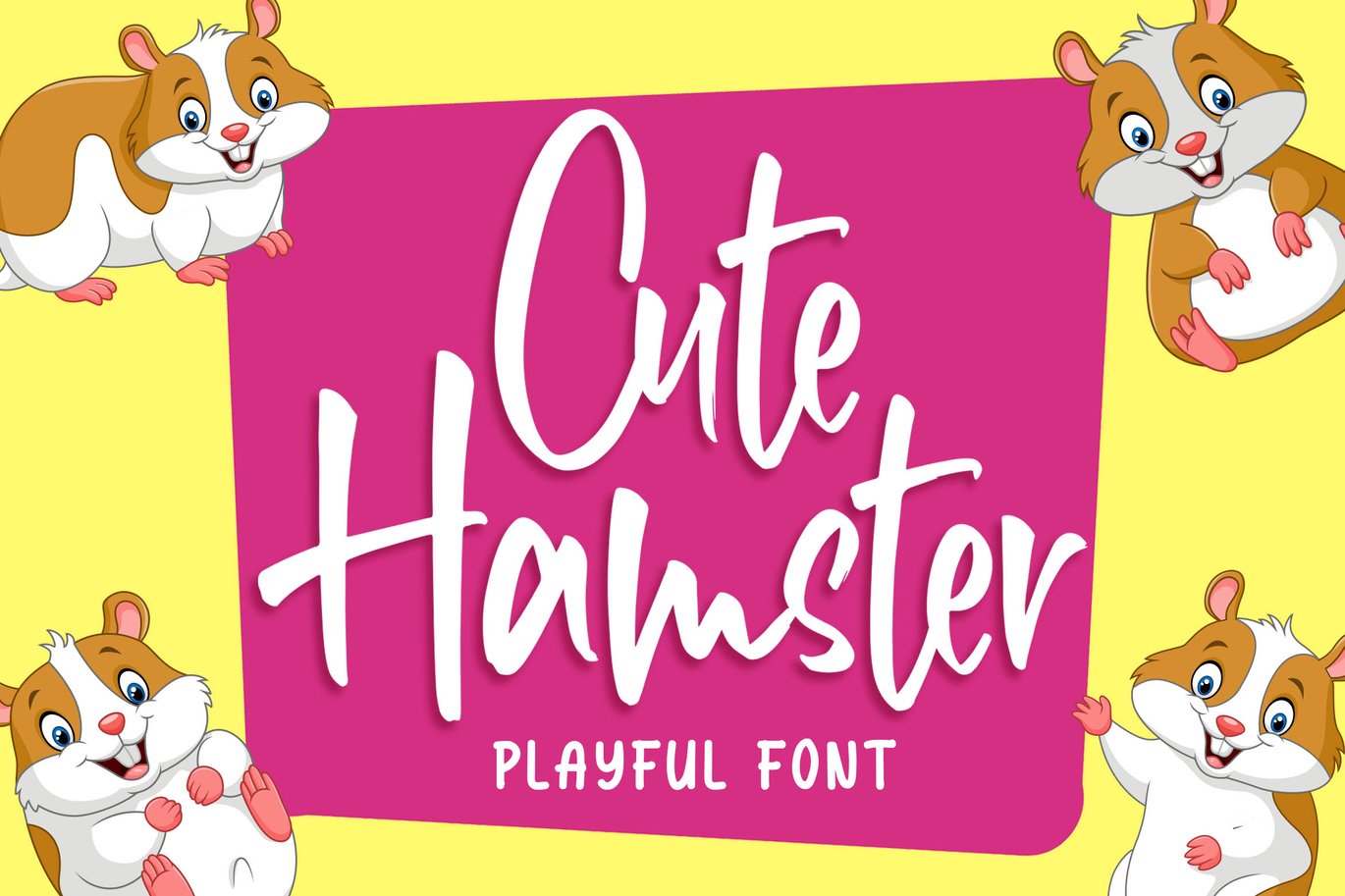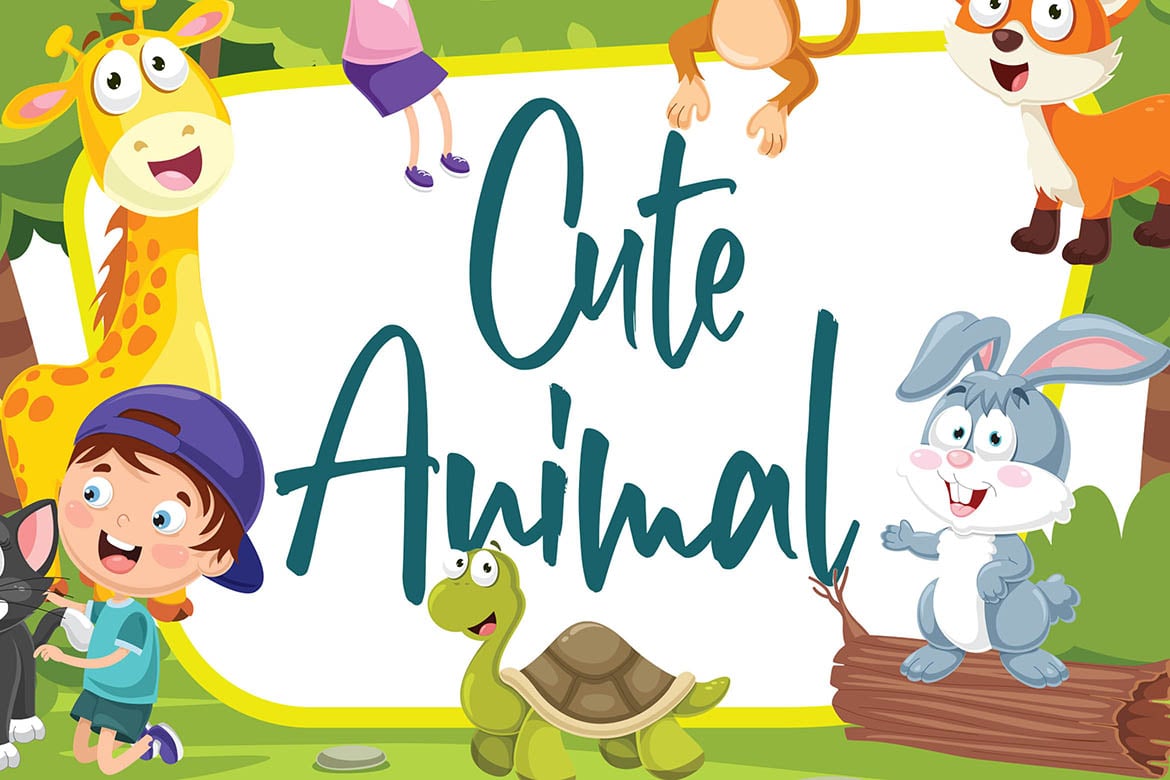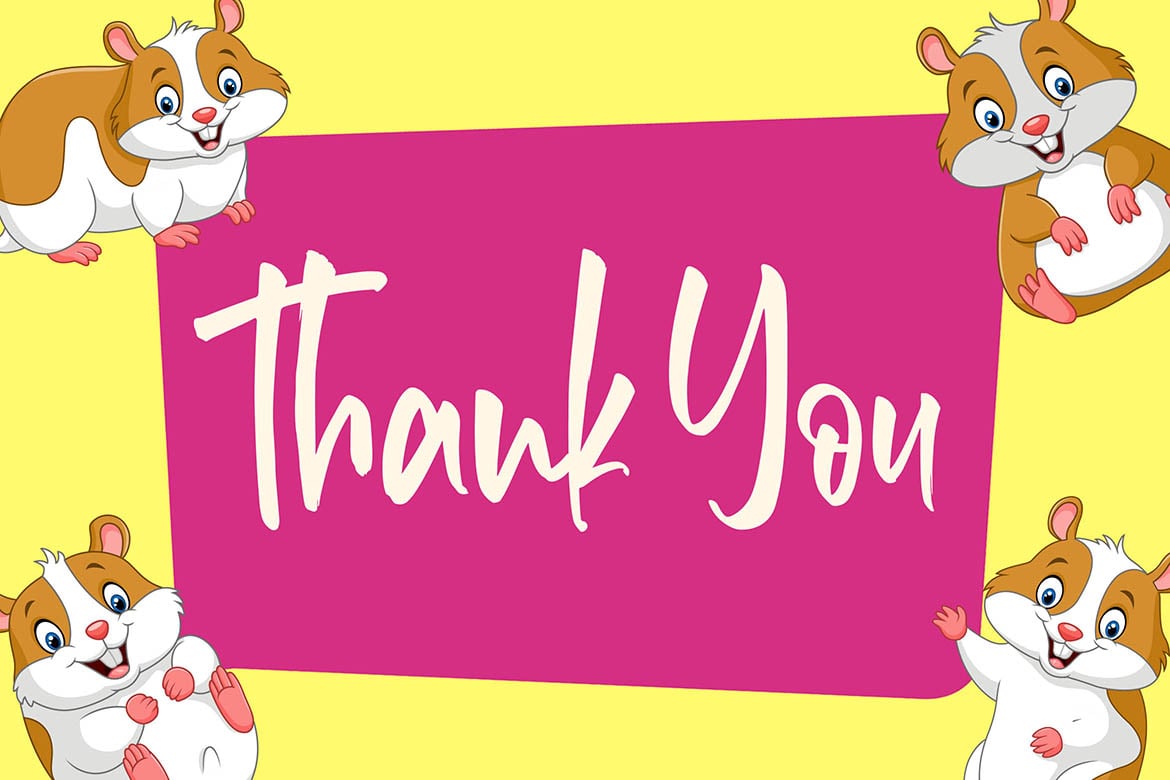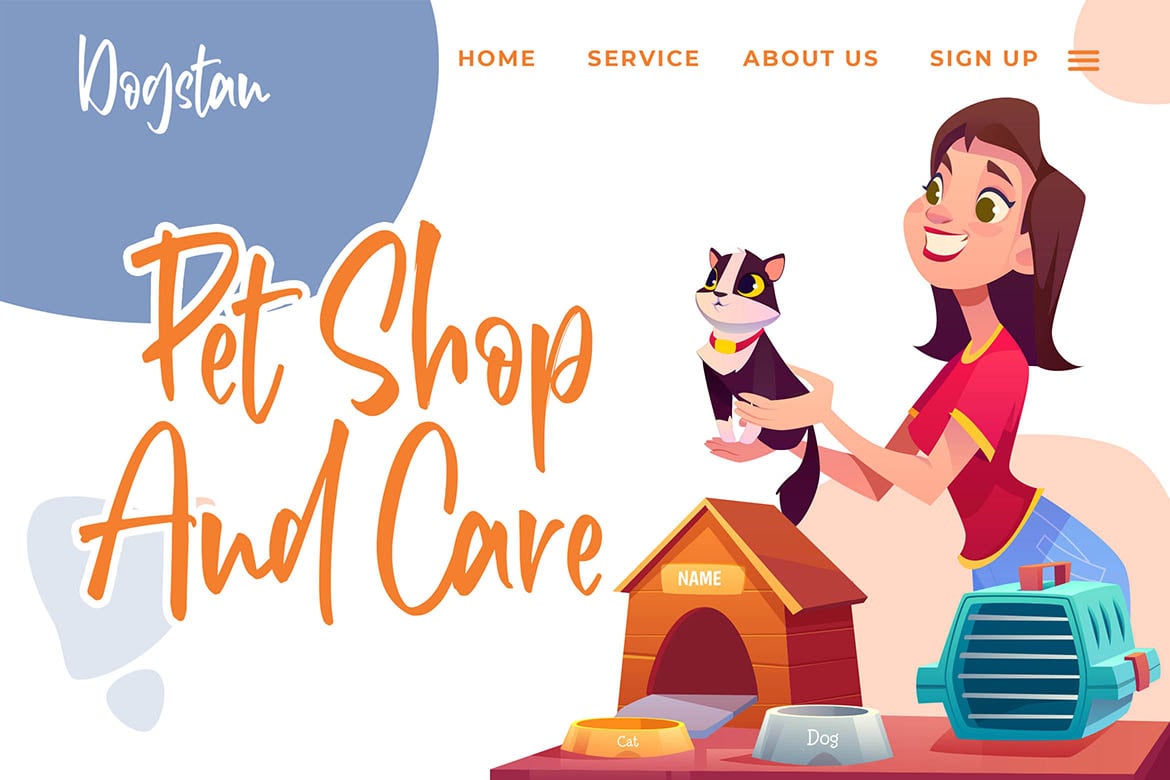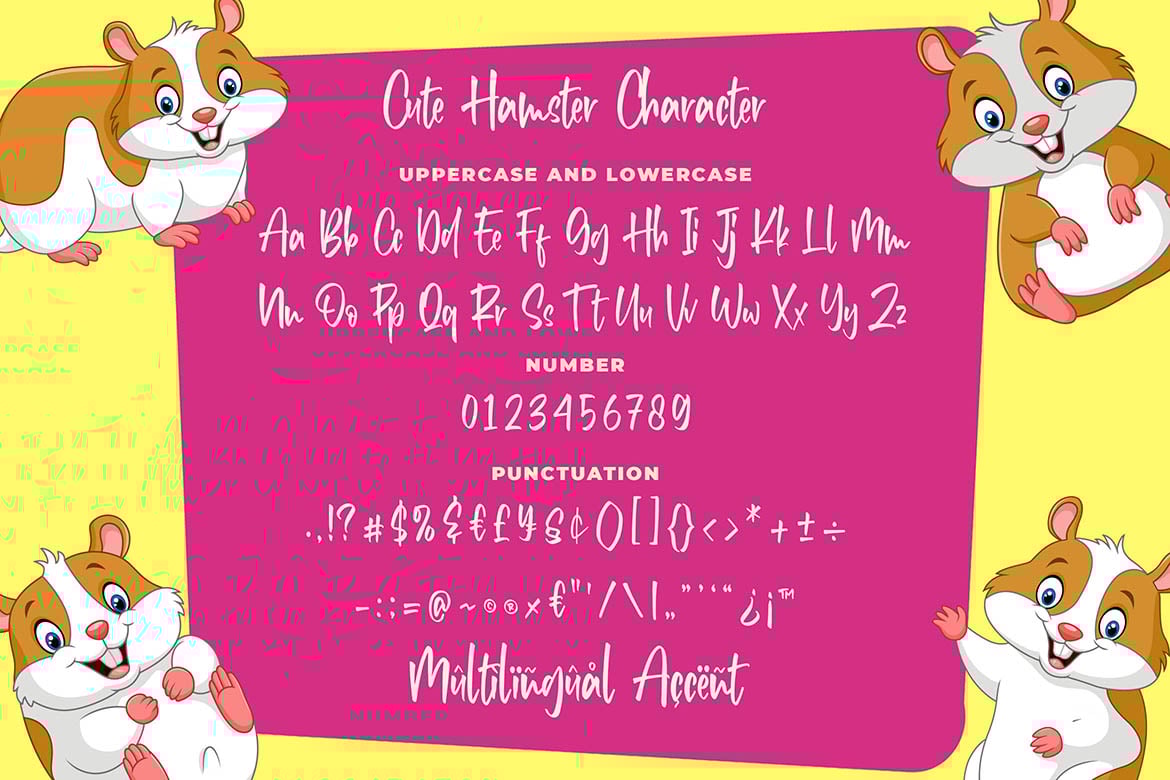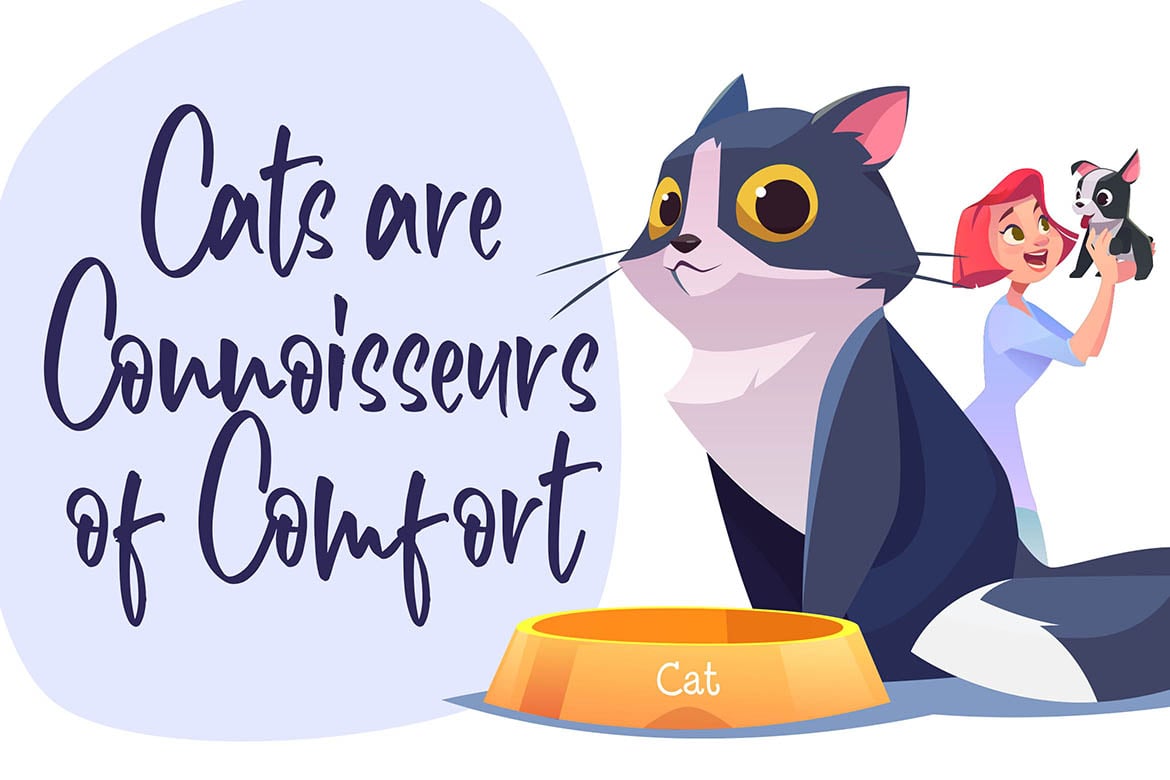
Cute Hamster – Playful Font
Introducing of our new product the name is Cute Hamster Playful Font. Cute Hamster inspired by modern calligraphy this font is a fun theme very good for Calligraphy serif, poster, food, wedding, branding etc
MULTILINGUAL ACCENT :
ŽžŠŒšŸÀÁÂÃÄÅÆÇÈÉÊËÌÍÎÏÐŁÑÒÓÔÕÖØÙÚÛÜÝßàáâãäåæçèéêëìíîïłñòóôõöøùúûüýÿ